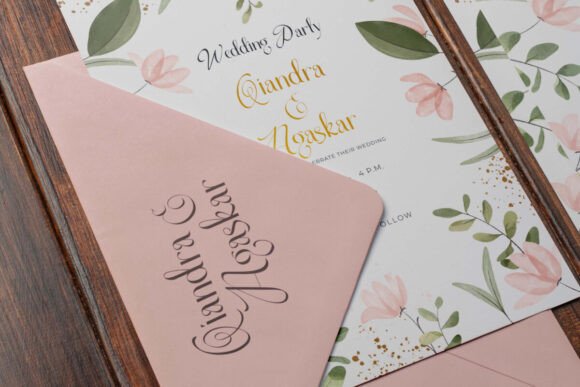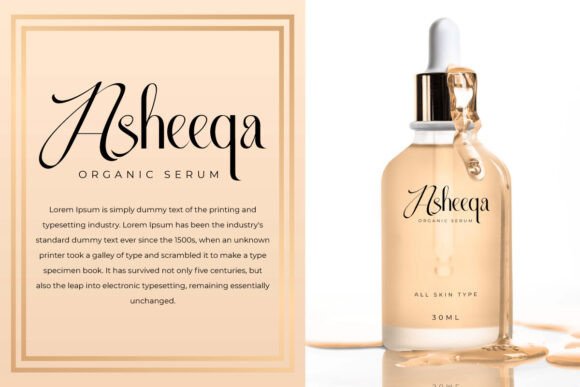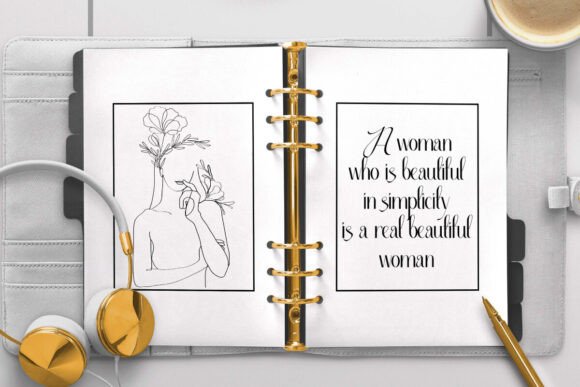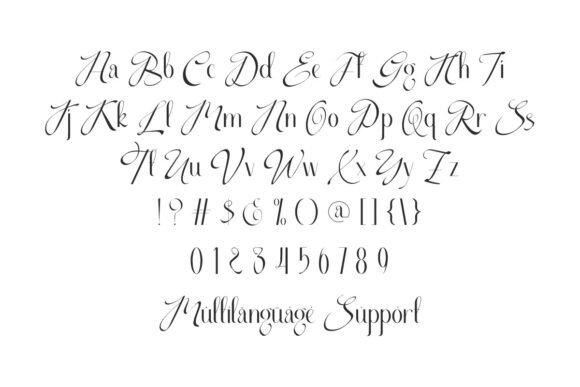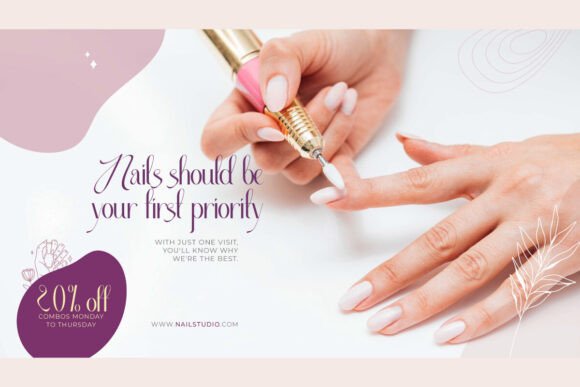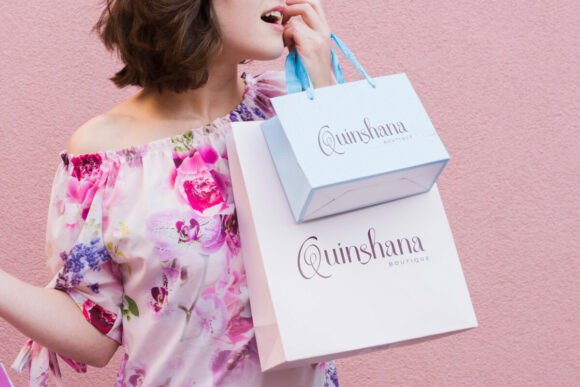
Adding a Touch of Luxury to Your Designs
As you sit at your desk, staring at a blank canvas, the creative juices start flowing. You envision a stunning visual identity for your brand, something that exudes elegance and sophistication. Suddenly, the perfect font pops into your mind – one that adds a dash of glamour and luxury to your design. This is where the Elegant Woman Font comes in – a classy display font that shines bright, perfect for making a lasting impression.
This versatile font is designed to work its magic across various applications, from apps and billboards to business cards and social media posts. With Elegant Woman Font, you can add a touch of sophistication to your designs, elevating your brand’s visual identity to new heights. Whether you’re a seasoned designer or just starting out, this font is a valuable addition to your toolkit, offering endless possibilities for creative expression.
Elegant Woman Font Key Features
- Size and Resolution: This elegant script font is available in a single font size, making it easy to use across various applications and designs. It is optimized for 72 dpi resolution, ideal for digital use.
- Unique Characteristics: The Elegant Woman Font features flowing, handwritten lines and intricate details, giving it a sophisticated and feminine touch. Its unique characteristics make it perfect for wedding invitations, greeting cards, and other elegant designs.
Elegant Woman Font Review
As a designer, I’ve had the chance to work with the “Elegant Woman Font”, and I must say it’s a unique and stylish choice. ✨ The font is perfect for projects that require a touch of sophistication and femininity. It’s great for logos, branding, and even digital signage. The elegant feel is exactly what I was looking for in a font.
The “Elegant Woman Font” has a lot going for it, but there are a few limitations to keep in mind. ⚠️ For one, the font may be too ornate for certain projects, and it can be overwhelming if used in large quantities. Additionally, the font may not be suitable for projects that require a lot of text, as it can be difficult to read in certain sizes.
Here are some of the key features that I liked about the “Elegant Woman Font”:
- Unique and stylish design
- Perfect for projects that require a touch of sophistication
- Great for logos, branding, and digital signage
- Beautifully crafted with elegant feel
Overall, I’m impressed with the “Elegant Woman Font”, and I would definitely recommend it for the right projects. However, it’s essential to keep in mind its limitations and use it judiciously to achieve the best results.
Getting the Most Out of Elegant Woman Font
For the best results, use the Elegant Woman Font in combination with elegant graphics and backgrounds.
Experiment with different font sizes, styles, and colors to create a unique and sophisticated look.
Use the font to create titles, headings, and body text that stand out and add elegance to your designs.
The Elegant Woman Font is perfect for:
Women’s lifestyle and fashion magazines
Branding and marketing materials for women’s products and services
Any design project that requires a touch of elegance and sophistication